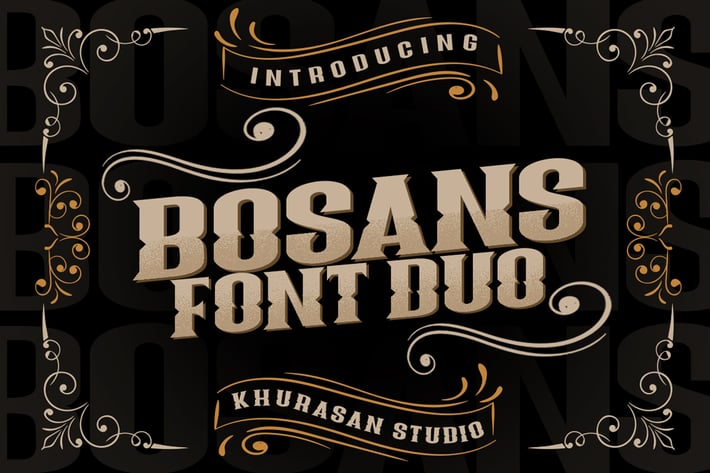
Bosans Font Duo
The Bosans font is a sans serif type of bold sans and sans serif type. The Bosans has three different styles, sans serif and serif. The Bosans font it’s perfect for , poster, logo, magazine, cover, banner, tshirt and headers, or even large-scale artwork.